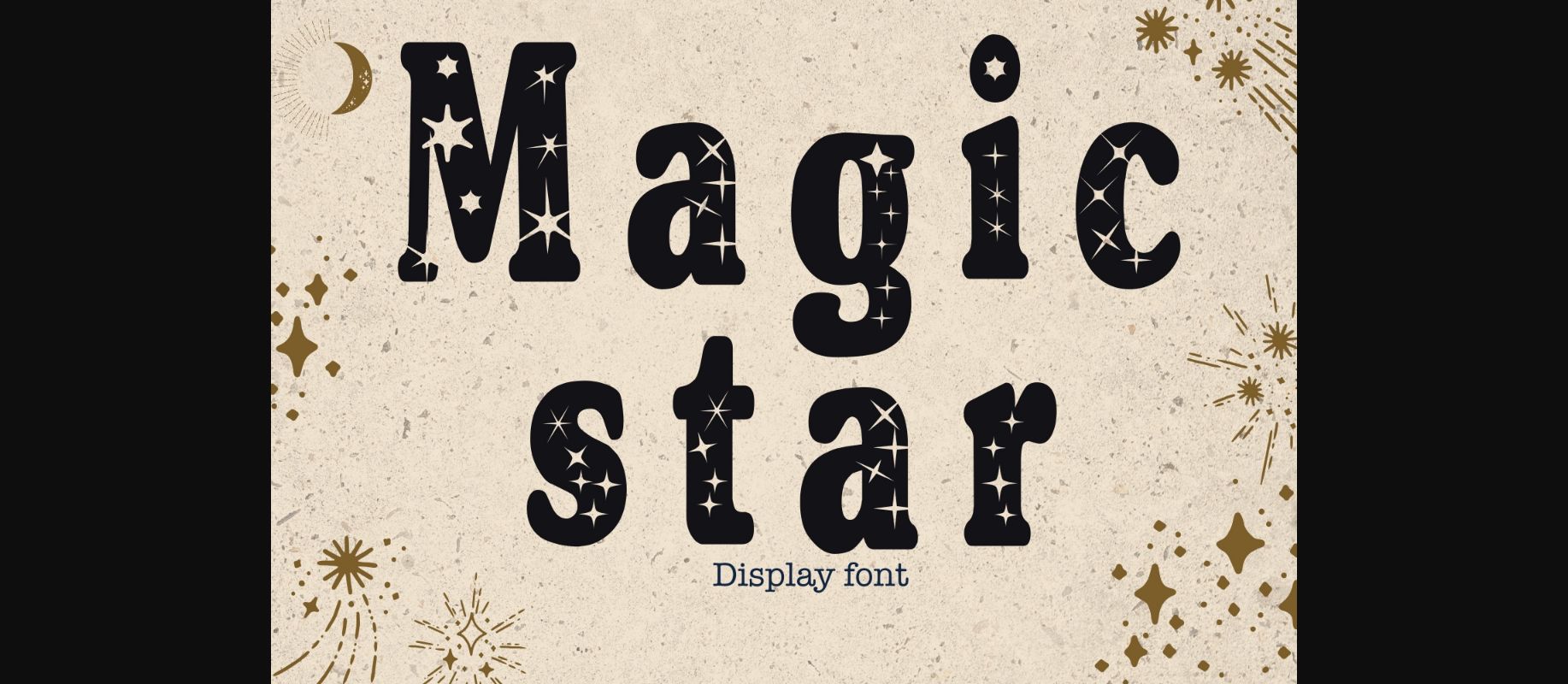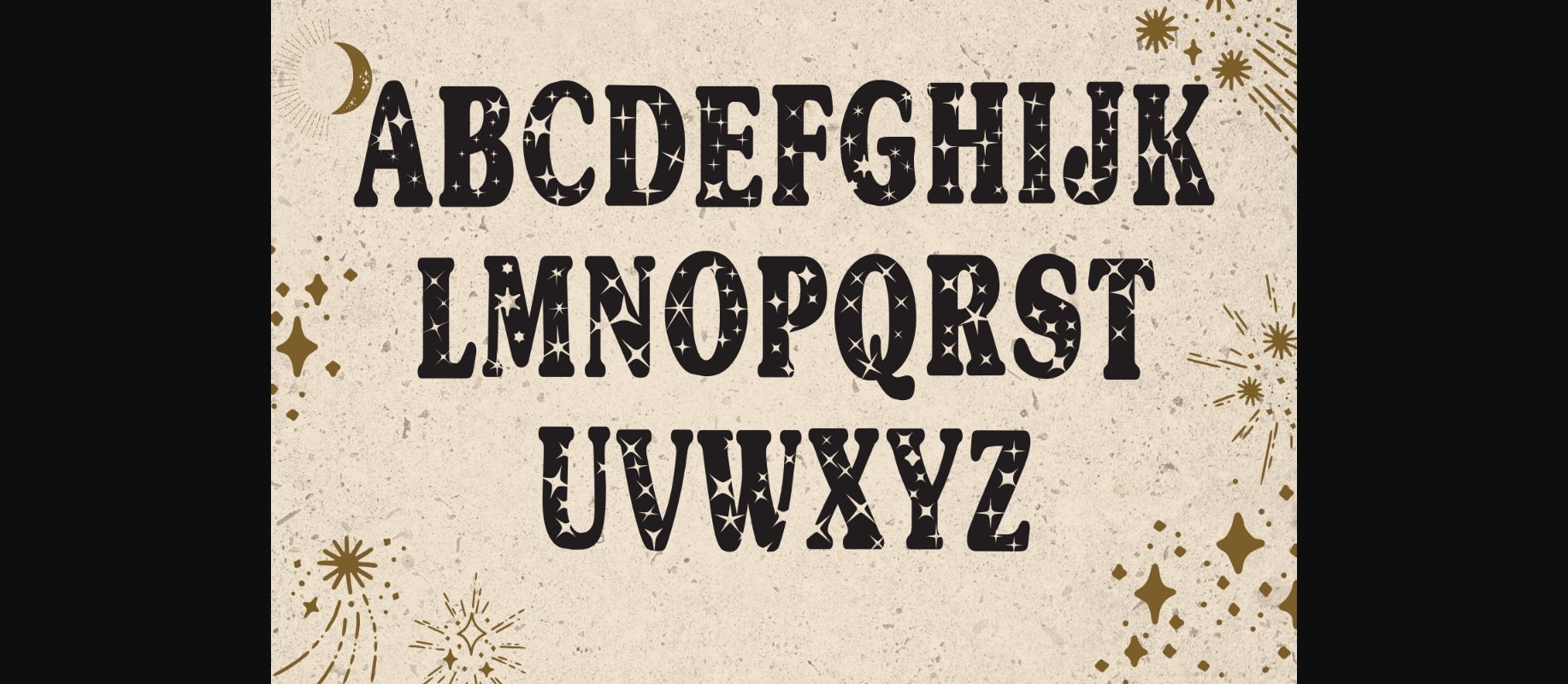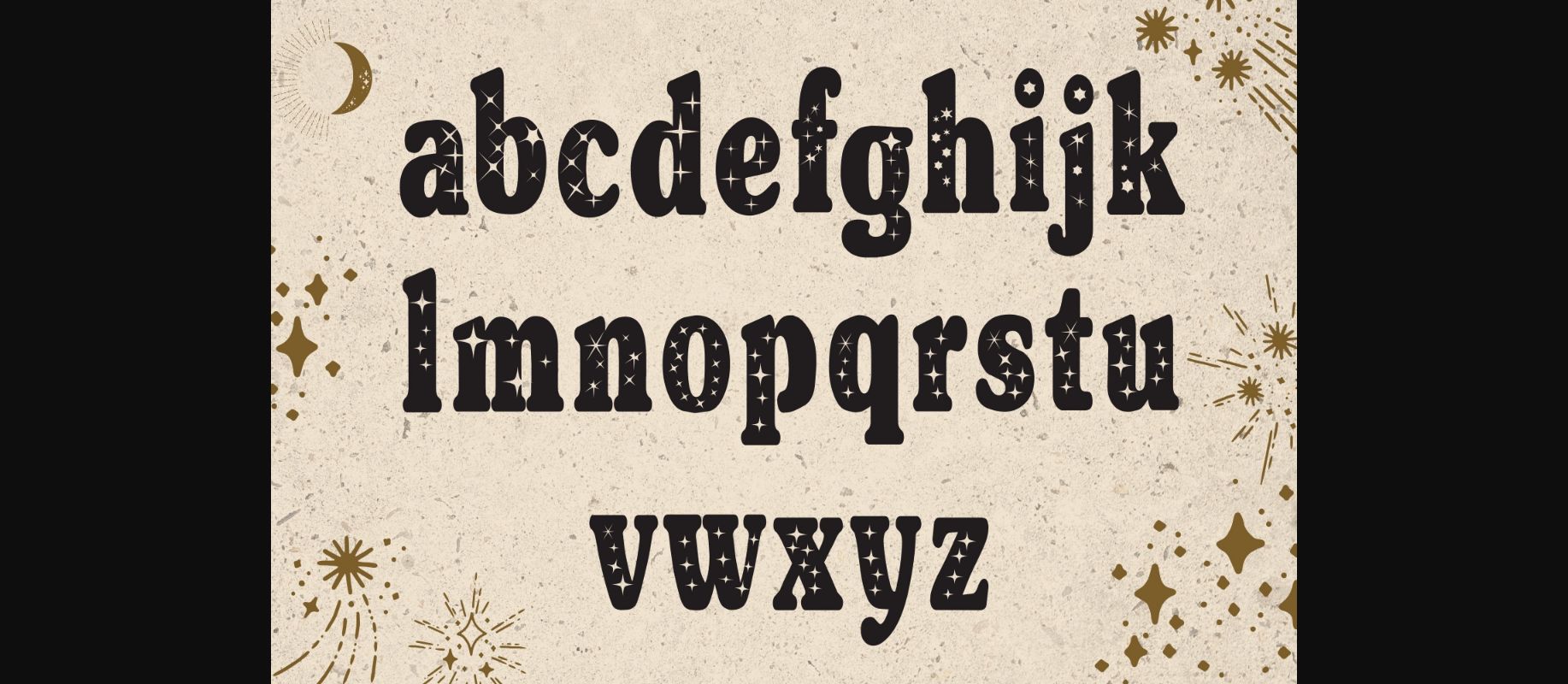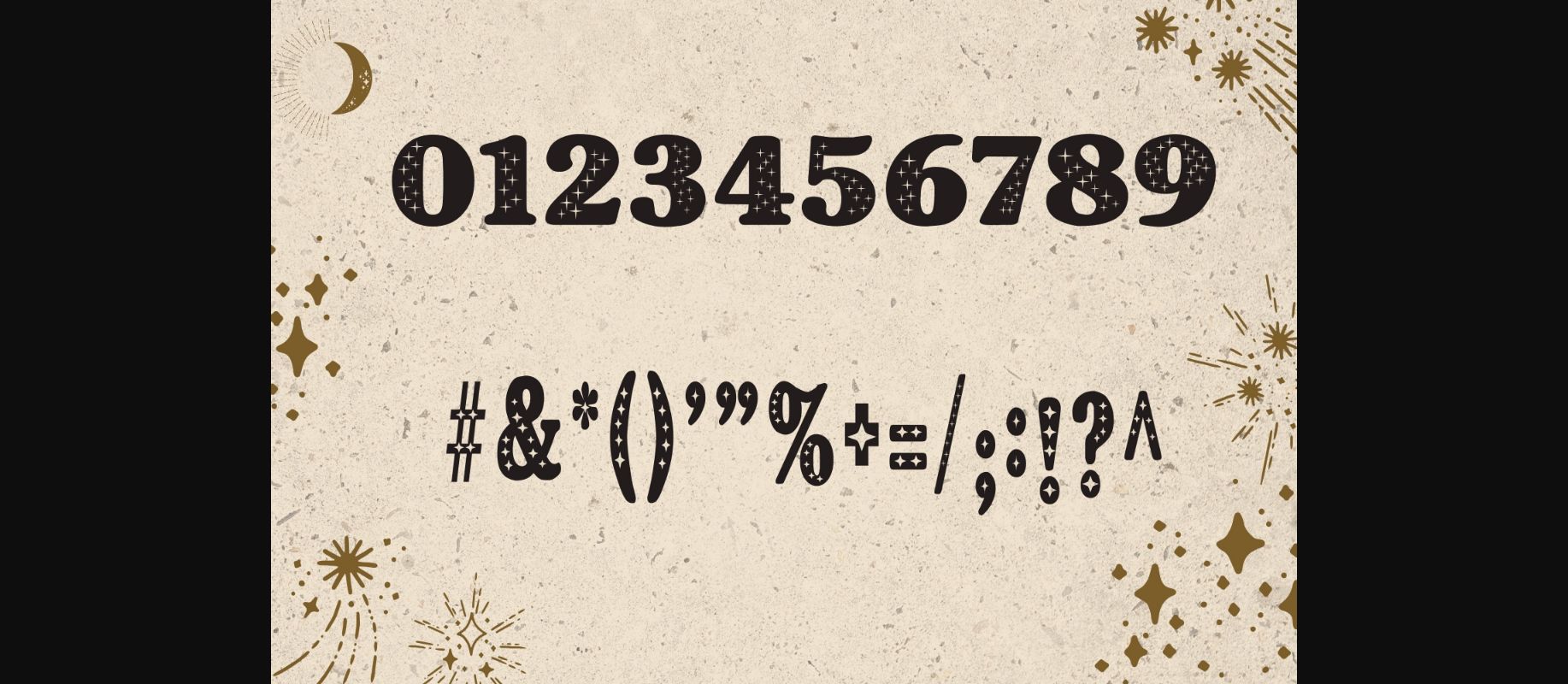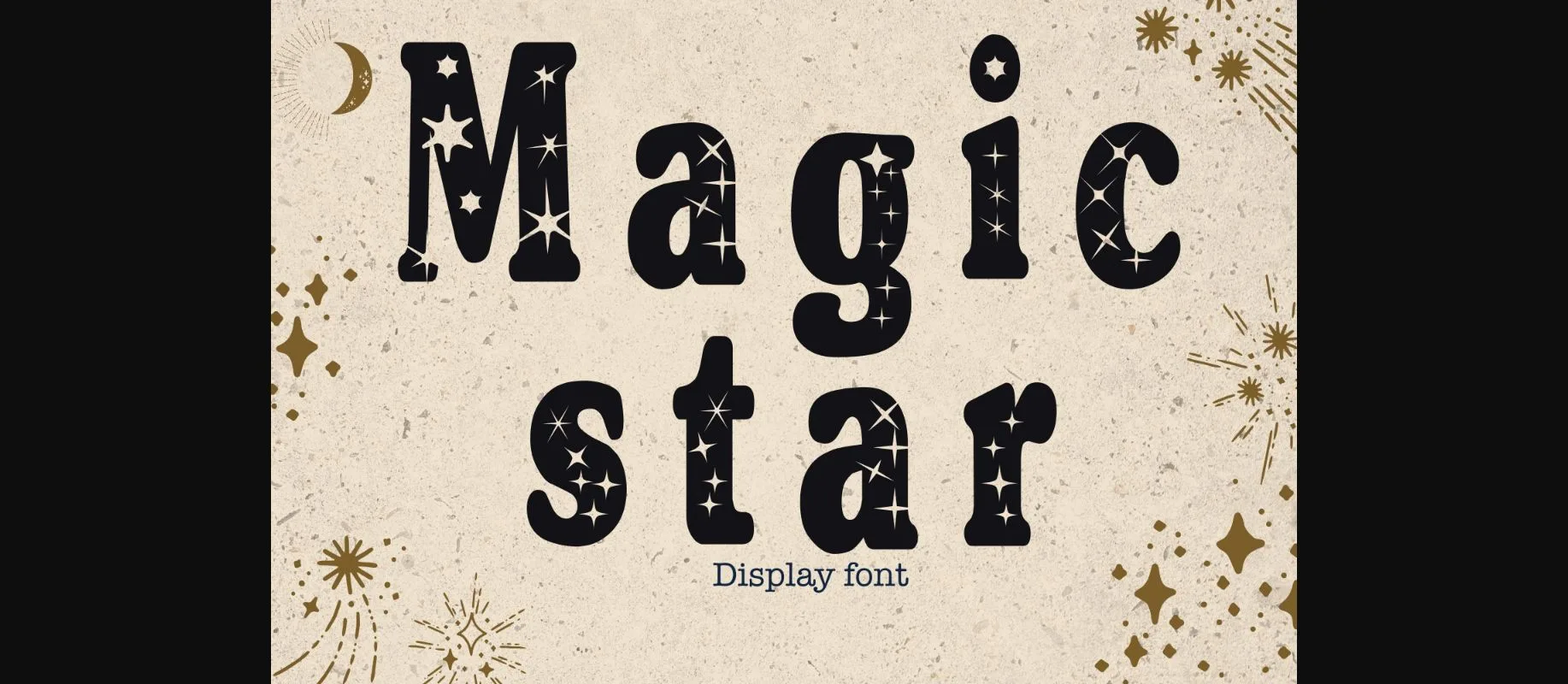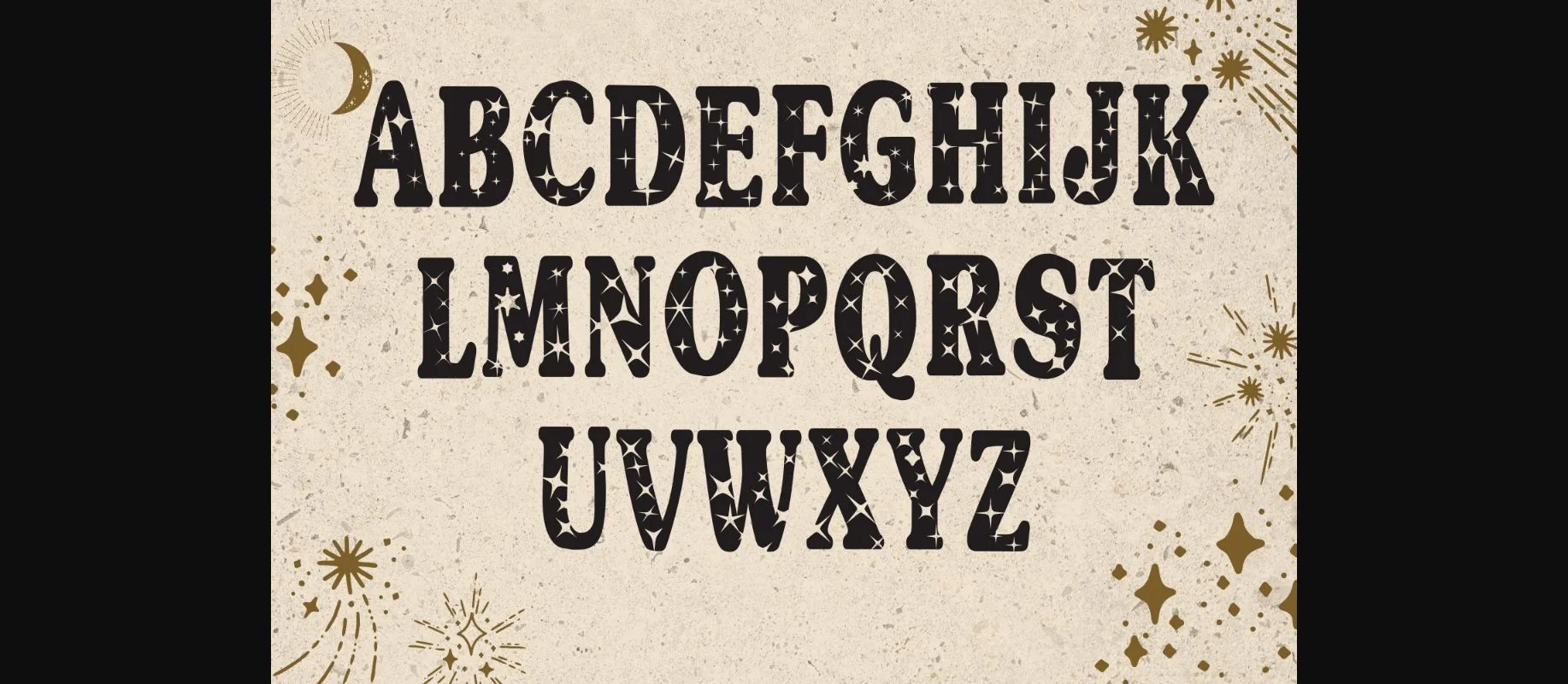
HomeDecorative FontsMagic Star Font Decorative Fonts Magic Star Font FacebookXPinterestWhatsApp 1 of 6 ... Magic Star Font Poster 2... Magic Star Font Poster 3... Magic Star Font Poster 4... Magic Star Font Poster 5... Magic Star Font Poster 6... About Magic Star Font Magic Star is a sparkly and fun decorative font. It has a modern yet whimsical style and it will undoubtedly immerse your designs into a magical world. DOWNLOAD NOW People also explored Eagle Font YWFT Crossover Abigail Font Floural Script Font Croxypraxis Font Arsenio Font Hi Christopher Font Valimart Font Angelin 298 0 TagsMagic Star Font Previous articleLalapah FontNext articleMatra Monogram Font LEAVE A REPLY Cancel reply Comment: Please enter your comment! Name:* Please enter your name here Email:* You have entered an incorrect email address! Please enter your email address here Website: Save my name, email, and website in this browser for the next time I comment. Personal Use Free Nouradilla Script Free Version Personal Use Free Read more about this font Wanita Cantik Personal Use Free Read more about this font Angola Beach Personal Use Free Read more about this font Abberancy Personal Use Free Read more about this font BLOG How to Install and Use Fonts on Windows, macOS, and Web Projects How to Install and Use Fonts on Windows, macOS, and Web Projects Fonts are a crucial part of design and branding. Whether you’re designing a... 5 Fonts That Will Dominate Design Trends in 2026 Exploring Font Trends Best Fonts for T-Shirt Design – Top 2025 Picks